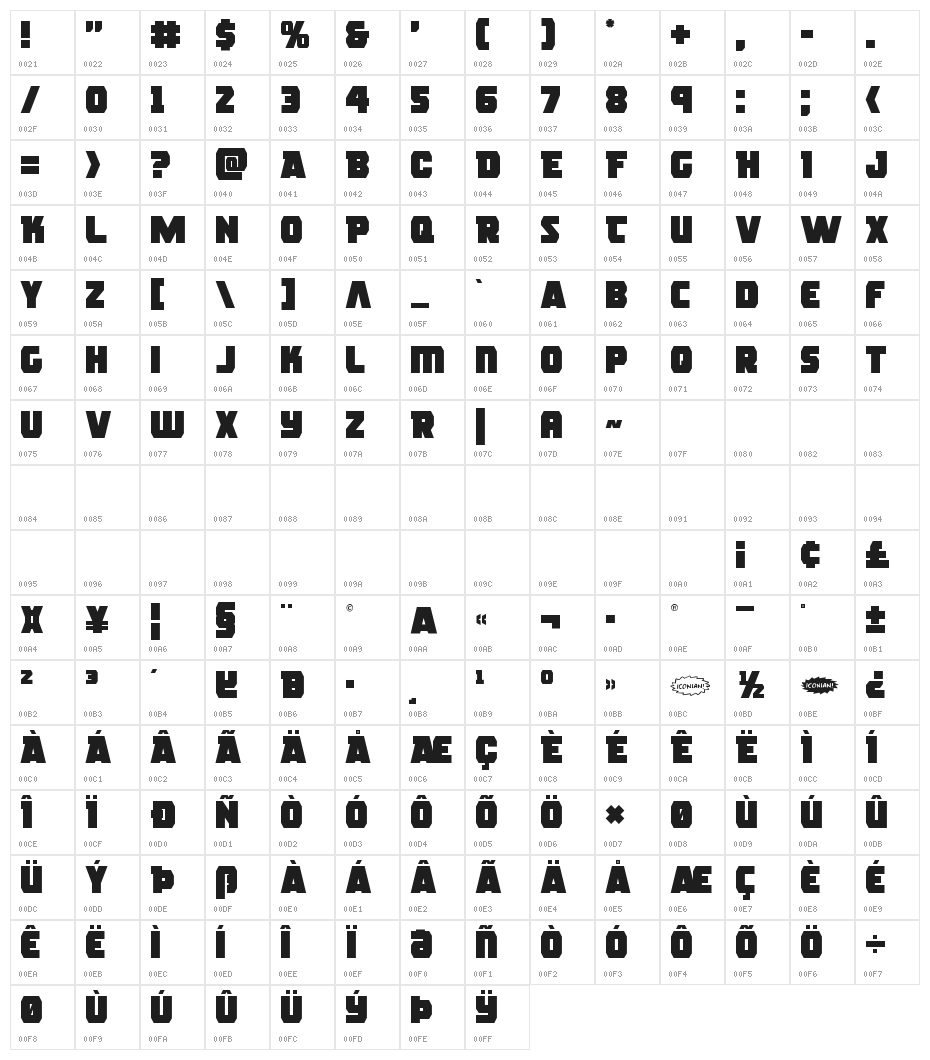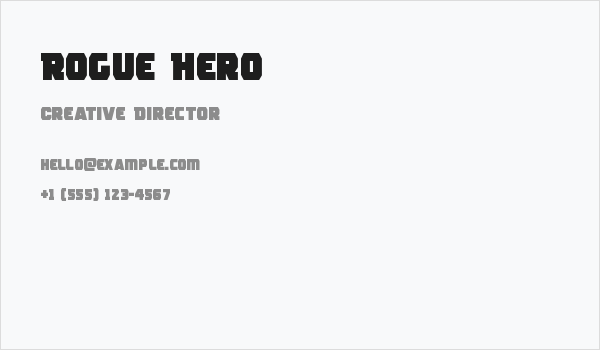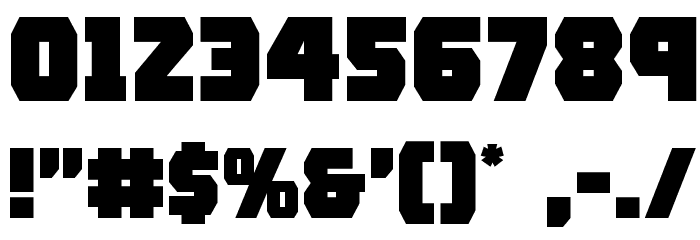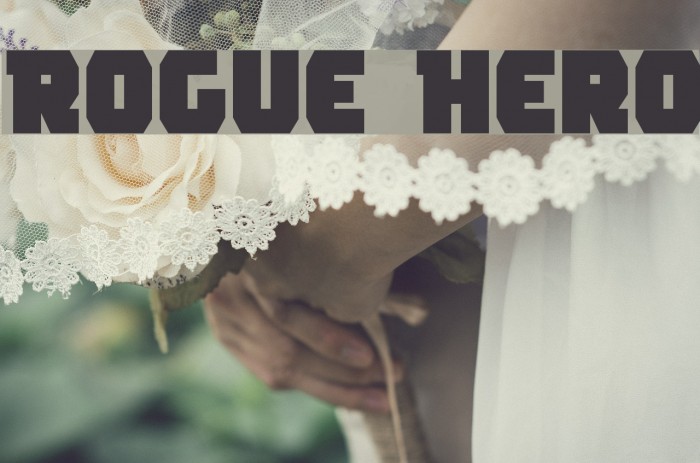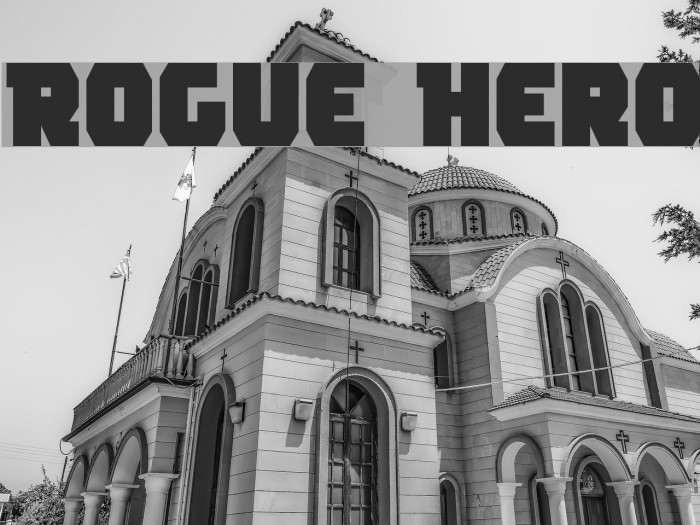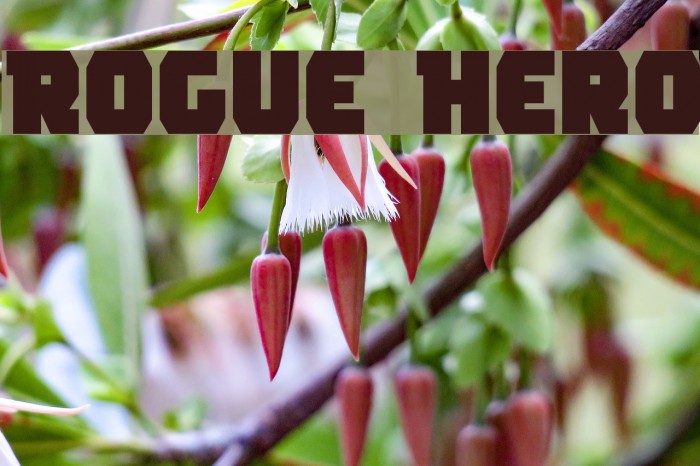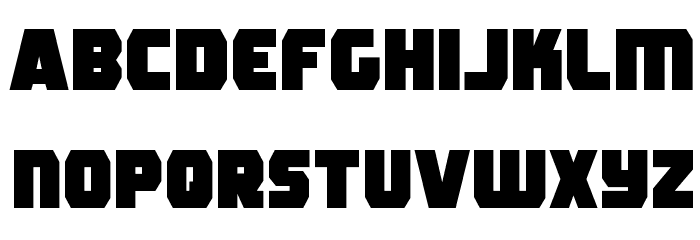
Rogue Hero Font
This font features a bold and impactful design with strong geometric shapes and angular edges. The characters are uniformly thick, creating a sense of strength and stability. The uppercase and lowercase letters maintain a consistent style, with the lowercase slightly smaller but equally bold. Numbers and special characters follow the same design principles, ensuring a cohesive look across all text elements. The font's solid and blocky appearance makes it ideal for attention-grabbing headlines and titles. Its distinct style is reminiscent of retro or vintage themes, yet it maintains a modern edge due to its clean lines and lack of ornamentation.
| Overall Style | Modern, Retro |
| Proposed Projects | Ideal for posters, logos, video game titles, and branding materials that require a bold statement. |